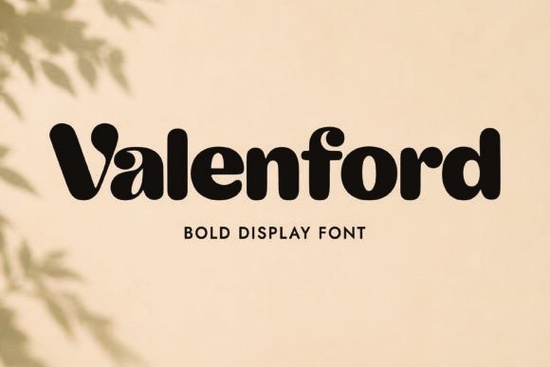
If you need a typeface that balances approachable warmth with strong visual presence, Valenford Font delivers exactly that. This bold handcrafted display lettering features soft rounded edges and a subtle vintage charm that works well across many creative industries. Whether you sell custom apparel, design packaging for local goods, or make handmade crafts, you will find it easy to apply this style to your daily workflow.
Why choose this style for commercial projects?
Designers often struggle to find letters that feel both polished and friendly. Rounded terminals and a slightly uneven baseline give it a hand-drawn quality without sacrificing readability. That mix of structure and organic texture helps it perform well in logos, brand identity packages, and retail signage. Because the weight remains consistent, pairing it with simpler sans-serif fonts keeps layouts clean.
You can use these glyphs for merchandise like tote bags, ceramic mugs, and greeting cards. Print-on-demand creators appreciate how the shape reads clearly when scaled down for social media thumbnails or embroidered on fabric patches. The vintage inspiration shows through in the slight asymmetry of certain characters, which adds personality without distracting from your main message.
How do I pair it effectively?
Typography depends on contrast. Use a clean geometric sans for body text so customers can easily read product descriptions. Reserve the heavier display letters for headlines, price tags, or short taglines. If your project needs a more casual script feel, exploring alternatives like Lucky Crush or Crafta gives you lighter handwritten options. Building a cohesive system around this selection often starts by checking the dedicated Valenford collection page, where alternate weights sit alongside the primary set.
How does it compare to similar families?
The market offers many decorative options, so knowing where this one lands helps you choose faster. It shares similarities with chunky retro lettering but stays cleaner than distressed brush scripts. If you need a sharper professional edge, checking out a heavy sans like Simple Weight serves better for modern corporate materials. Conversely, educators often prefer softer options like Karlie School when prioritizing child-friendly readability over bold impact.